9 Best Free Groovy Hippie Fonts to Spice Up Your Design in 2023
Free Groovy Hippie Fonts
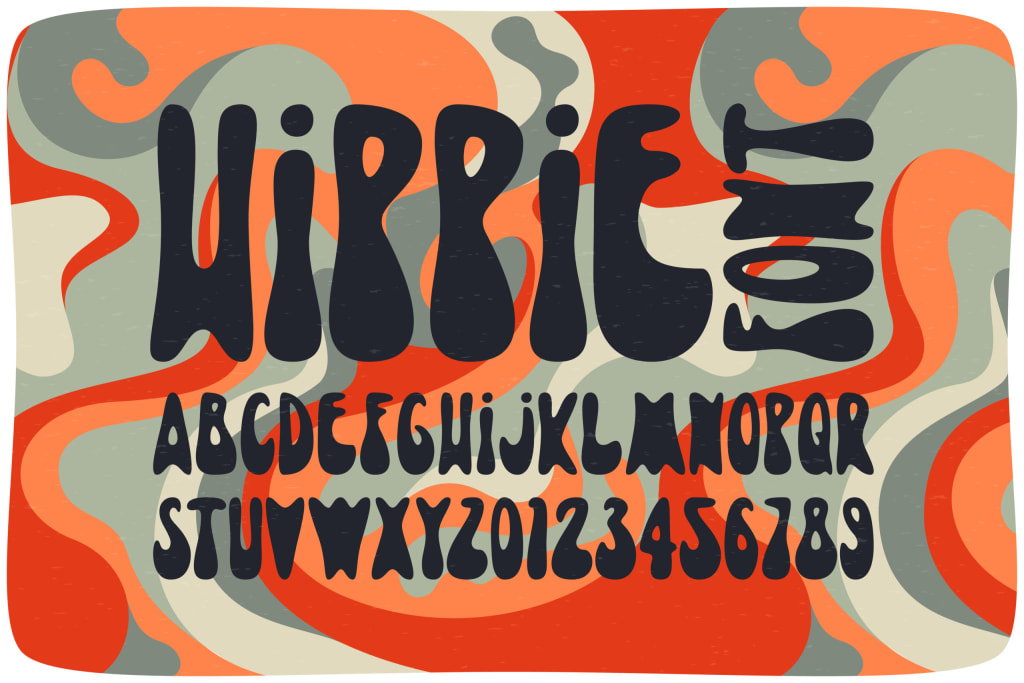
Fonts are an essential element in graphic design. Apart from being able to convey a message, this type of font can also add an aesthetic and artistic touch. A graphic designer can use a certain type of font to reinforce the theme they want to present. For instance, in Hippie fonts, this lettering design is suitable for a unique and artistic vintage or retro style.
Interestingly, this typeface has many design choices with very good legibility. The good news is you can use this font for free. If you can’t wait to find out what the different types are, let’s take a look at some of the recommendations.
9 Best Free Groovy Font Recommendations
Bring the audience feel nostalgic when they look at your design by using the following Groovy font types:
1. Tommy
For great branding or advertising designs, try using the Tommy Font. The appearance of this type is very clear because it is a bold font. The design is not too complicated but manages to convey a sweet retro vibe.
For some lowercase letters such as m, y, g, etc., there is a curly detail on one end of the letter. Tommy provides uppercase letters, lowercase letters, and numbers. There are not many fonts that provide as many properties as Tommy.
2. Nighty
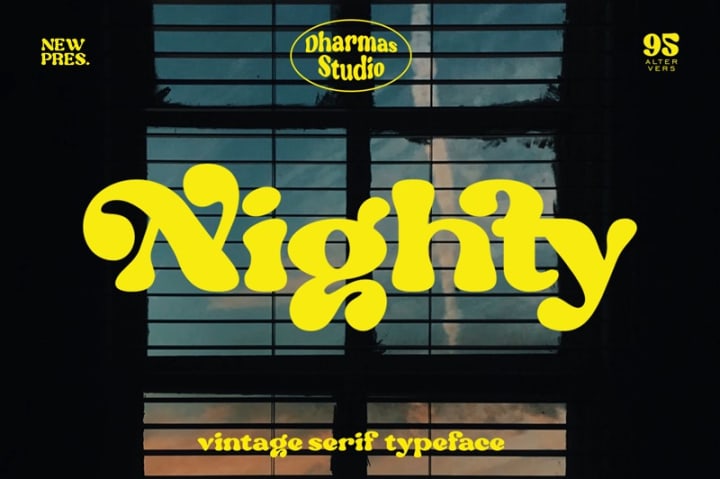
If you’re working on a project where the theme has to be cheerful, then an alternative choice of suitable font is Nighty. The design of each letter in this font is adorable because each end of the letter has a rounded corner.
You can use this font to create logos, branding, or even advertising because it has clear legibility. The wide font size also easy to steals attention.
3. Genty
Creating a feminine and sweet design will be more interesting if you use cursive writing. This free Hippie font that you can choose is Genty because it looks very sweet and elegant. Genty really supports the typography of beauty products, fashion, and things related to elegant and feminine appearance.
The thing that makes Genty’s typeface enchanting is its simple curves yet give it an amazing retro touch.
4. Keep on Truckin’
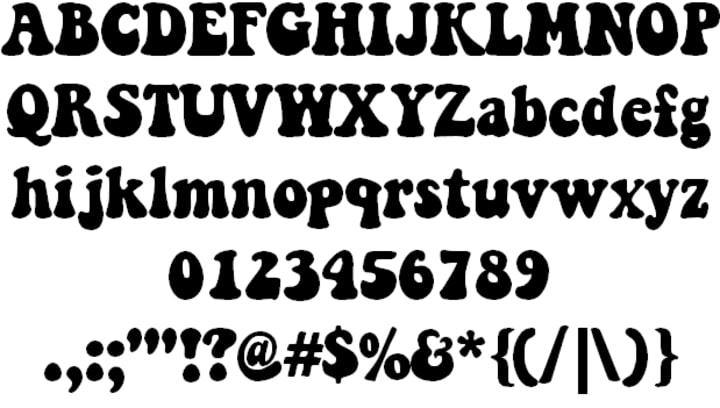
For those of you who are working on 90s-themed designs, you can consider Keep On Truckin’. This font look will bring back memories of classic disco. The distinguishing feature of Keep On Truckin’ is that each letter looks fat, and each end of the letter has a rounded corner.
5. Margin
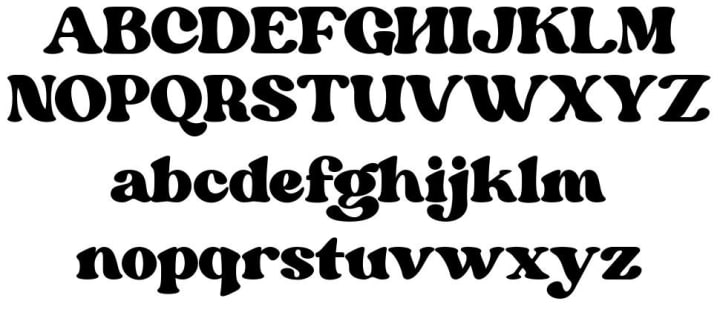
An alternative to Groovy Hippie Fonts that can bring the audience into the nostalgic style of the 80s is Margin. At first glance, it looks similar to Nighty, but if you pay close attention to the details, the two have differences. Margin uses a slightly different curve from Nighty in certain types of letters, for example, g, y, j, k, and others.
6. Abstract Groovy
Bring back the fun of the 1980s to your designs by selecting Abstract Groovy. This font only includes uppercase letters and numbers, so it’s perfect for making announcements, posters or logo designs.
Uppercase letters will be easier to withdraw attention. Its legibility which is very clear, allows people to read more easily even though they only see it with the blink of an eye.
7. Nectarine
If you want to collaborate on a cheerful and beautiful typography look, use the Nectarine Font. Its appearance is similar to Keep On Truckin’, but Nectarine adds detail extending downwards or upwards for certain typefaces. Even though Nectarine gives a touch of lines that look like tendrils but the legibility is so clear.
8. Heavy Heap
Believe it or not, the font you use in typography will not only affect the emotions of the audience but can also generate energy. If you want to excite the audience, let’s go with Heavy Heap because the design looks like flames!
9. Salatiga
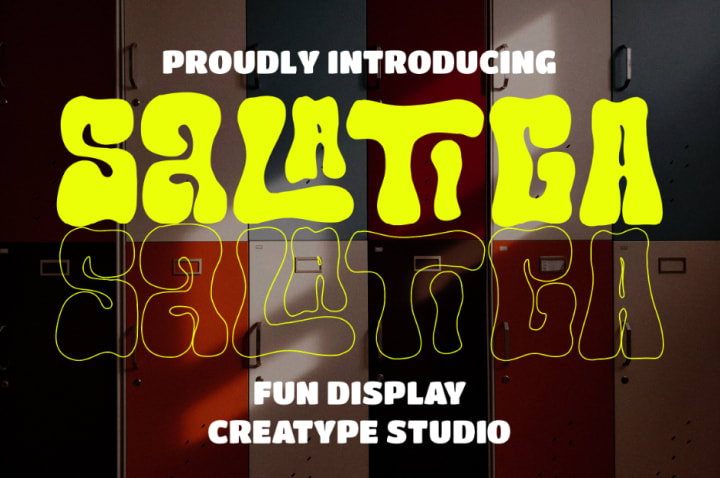
The next free Groovy font recommendation is Salatiga from Fontspace. This bold font looks cute with the super bold and puffy parts at the bottom. While the upper design is a bit slimmer with rounded corners.
Which Hippie Font Fits Your Project?